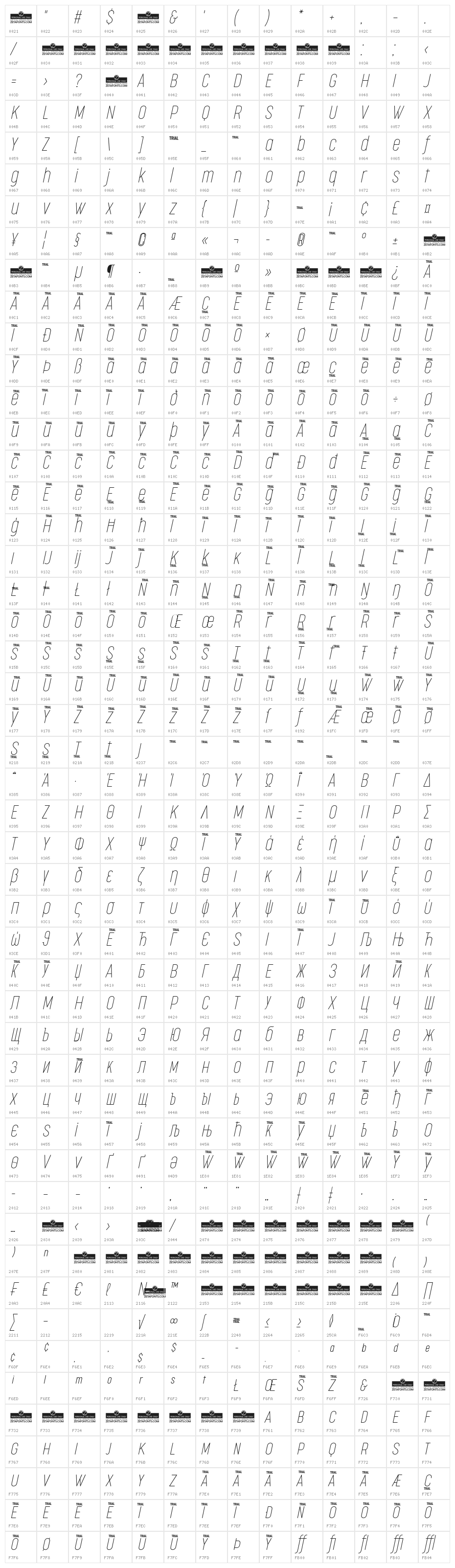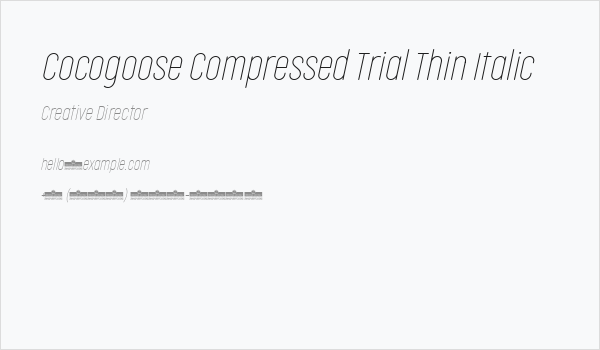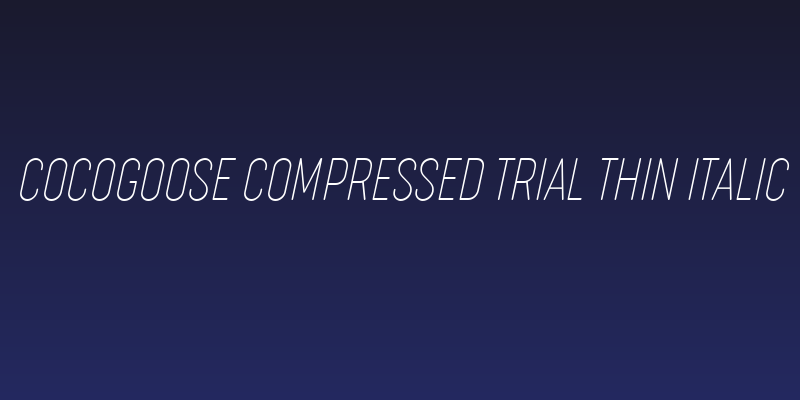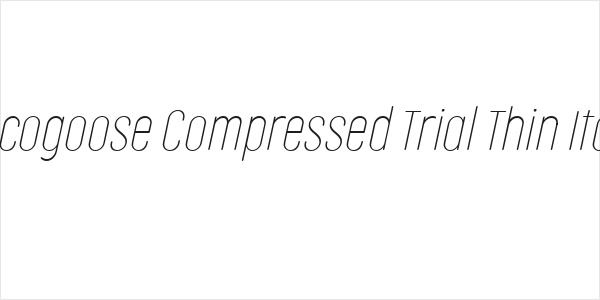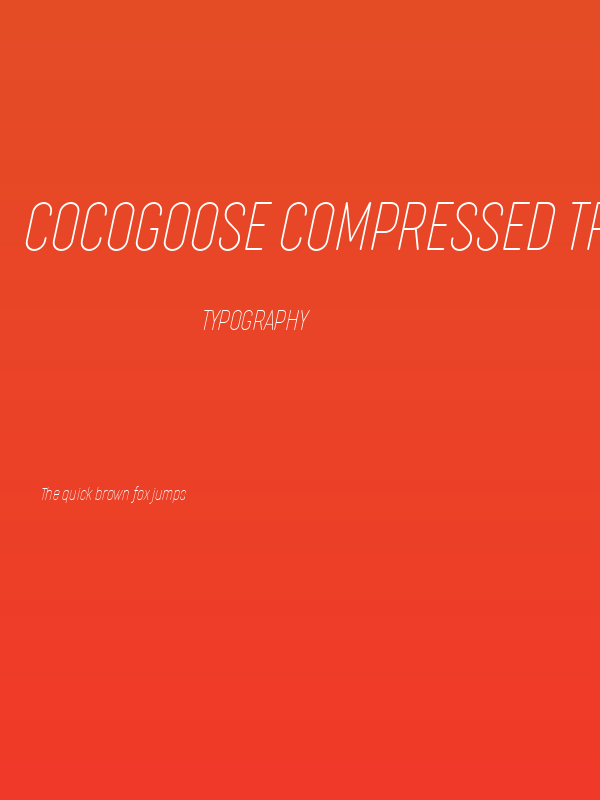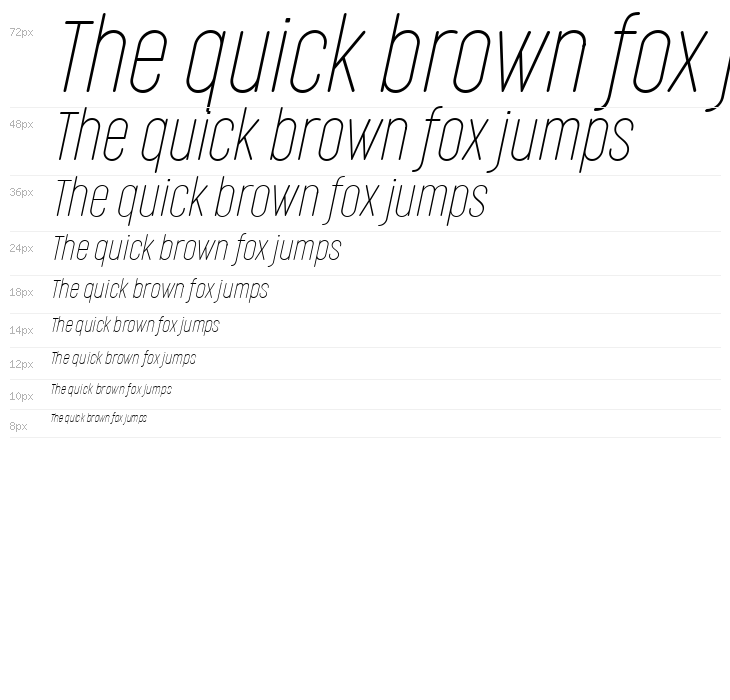
Cocogoose Compressed Trial Thin Italic Font
Cocogoose Compressed Trial Thin Italic Description
This font features a sleek and modern design with a thin, italicized style. The characters are elongated and compressed, giving them a sophisticated and contemporary look. The uppercase and lowercase letters maintain a consistent slant, enhancing the italic effect. The numerals and special characters follow the same design principles, ensuring uniformity across the typeface. The overall appearance is clean and minimalistic, making it suitable for a variety of design applications.
| Proposed Projects | Ideal for fashion magazines, modern branding, sleek advertising campaigns, and minimalist website designs. |